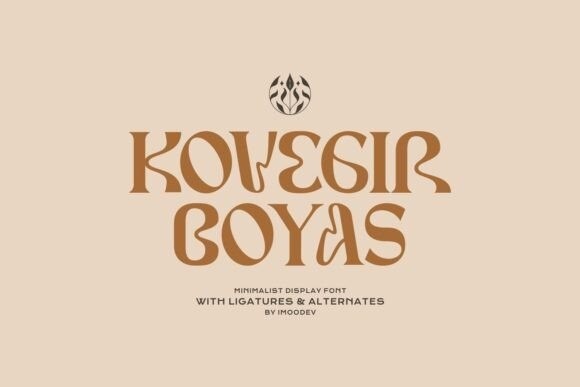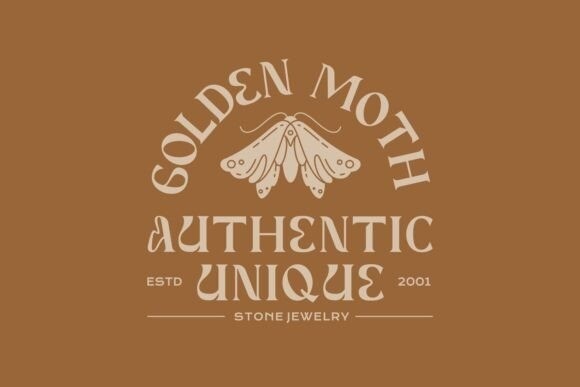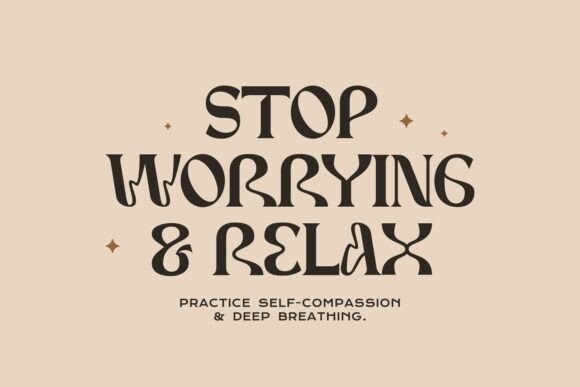
Kovegir Boyas Font
Kovegir Boyas is a smooth and elegant display font. Defined by stylish and luxurious curves and rounded corners, this font will be an incredible asset to your fonts library.